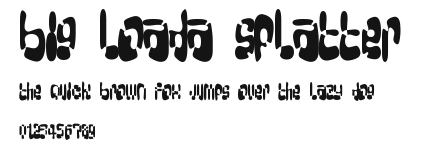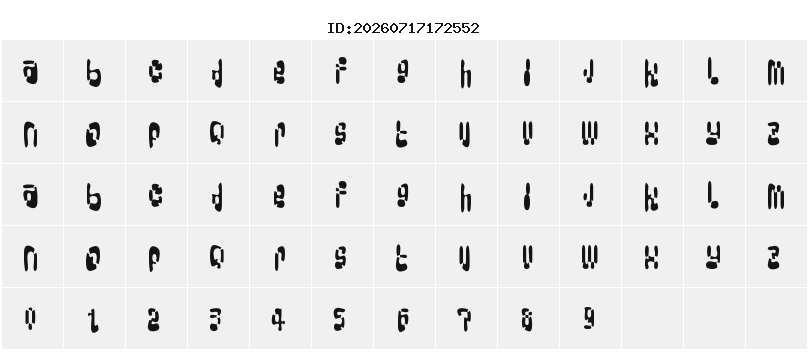
Big Loada Splatter Preview
• Font Name: Big Loada Splatter
• Font ID: Big Loada Splatter
• Full Font Name: Big Loada Splatter
• Character Count: 249
• Designer: K.Hachmang
• Manufacturer: Glitch: Freeware Fonts
• Description: Like Big Loada, but different. By K.Hachmang, 1998. Freeware - Not for commercial use.